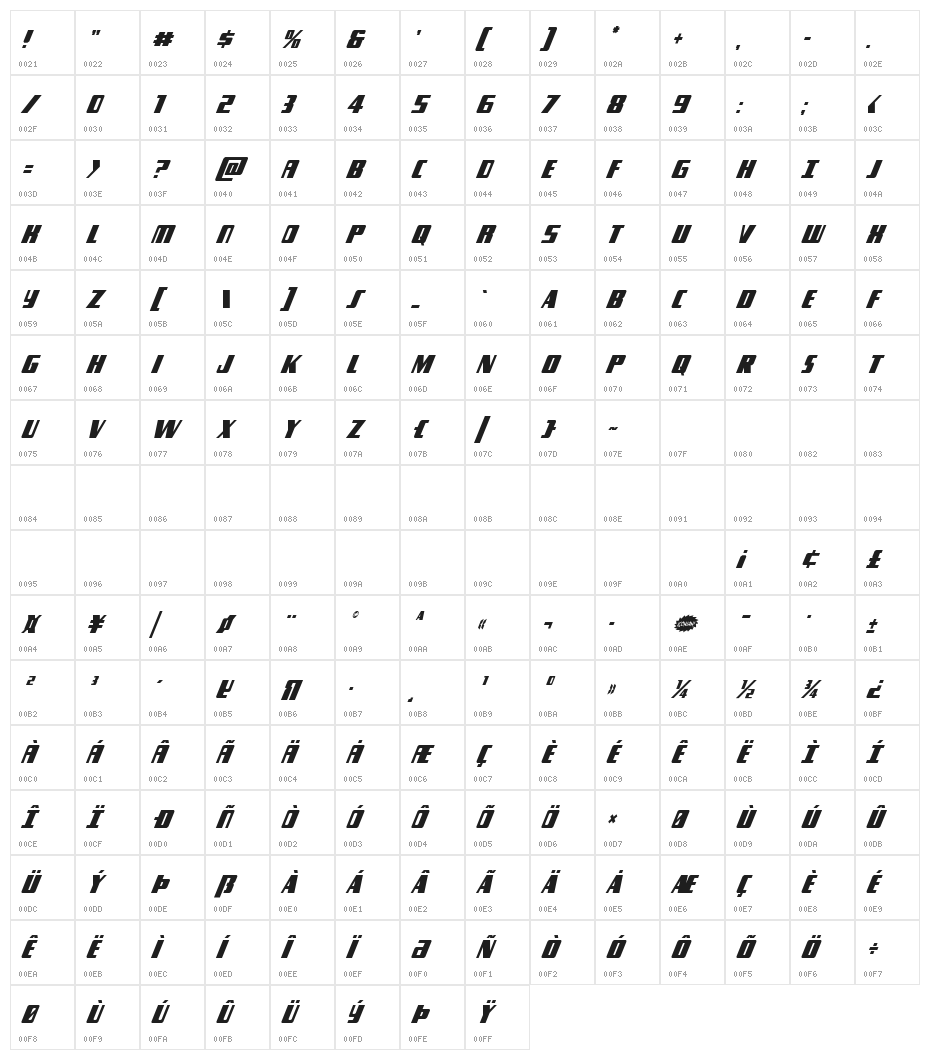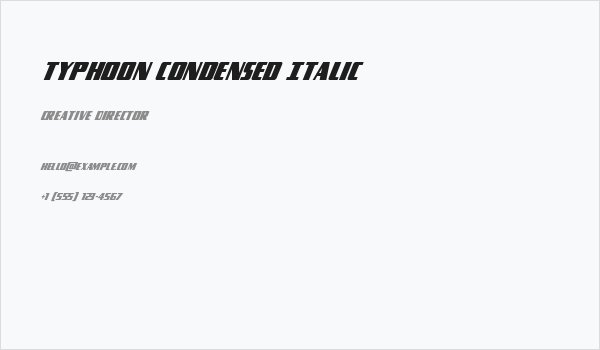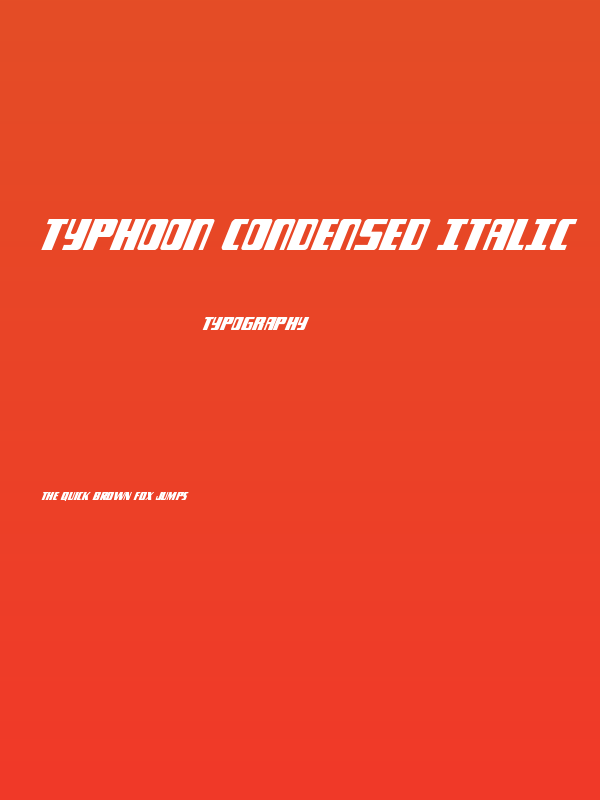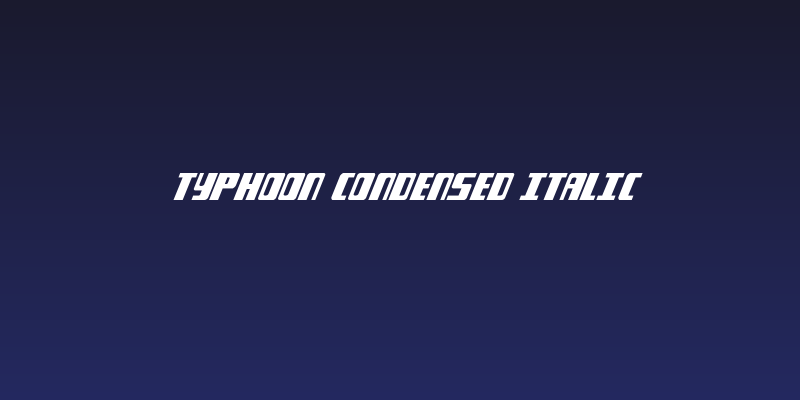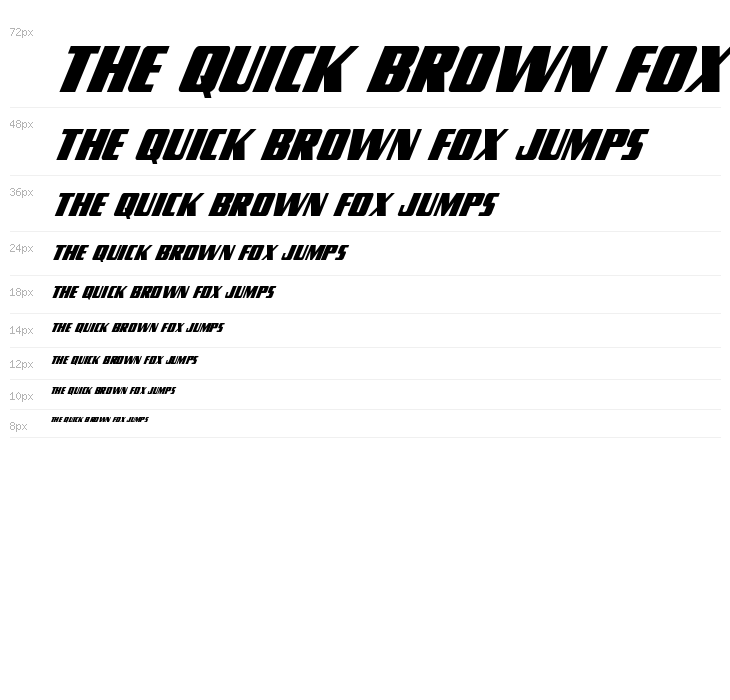
Typhoon Condensed Italic Font
Typhoon Condensed Italic Description
This font features a bold, italicized style with a condensed width, giving it a dynamic and energetic appearance. The characters are sharply angled, creating a sense of movement and speed. The uppercase and lowercase letters maintain a consistent slant, enhancing the italic effect. The numbers and special characters follow the same stylistic approach, ensuring uniformity across all glyphs. The font's design is modern and sleek, making it suitable for projects that require a strong visual impact. Its condensed form allows for efficient use of space, while the bold strokes ensure readability even at smaller sizes.
| Proposed Projects | Ideal for sports branding, dynamic posters, modern advertising, and any project needing a bold, energetic typeface. |